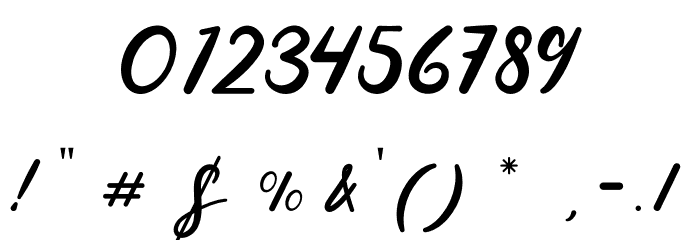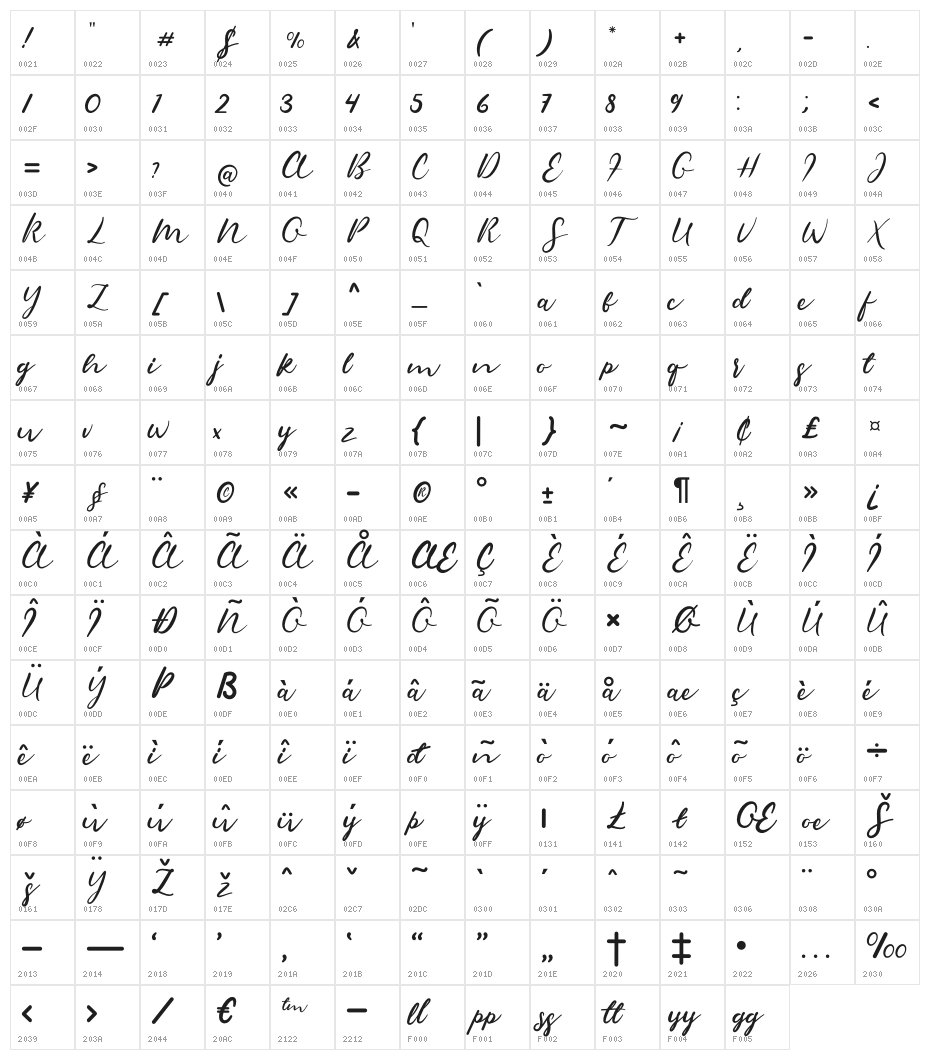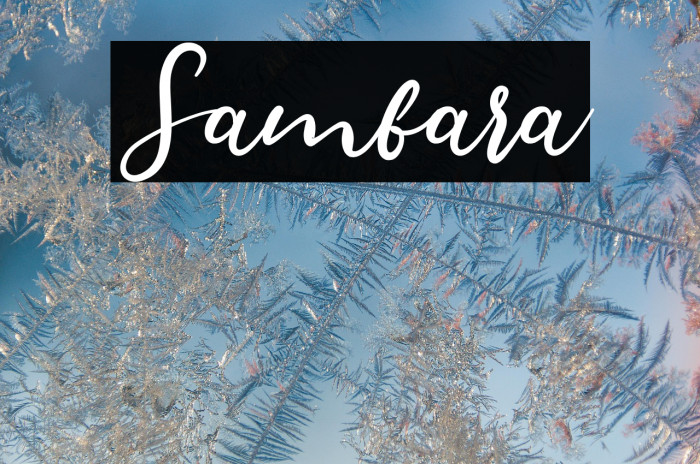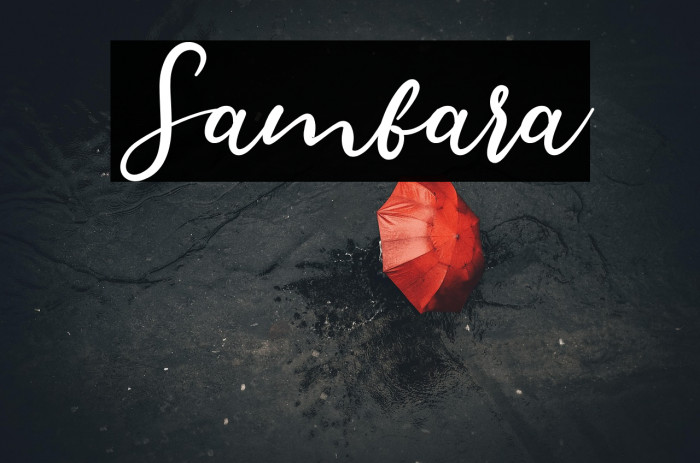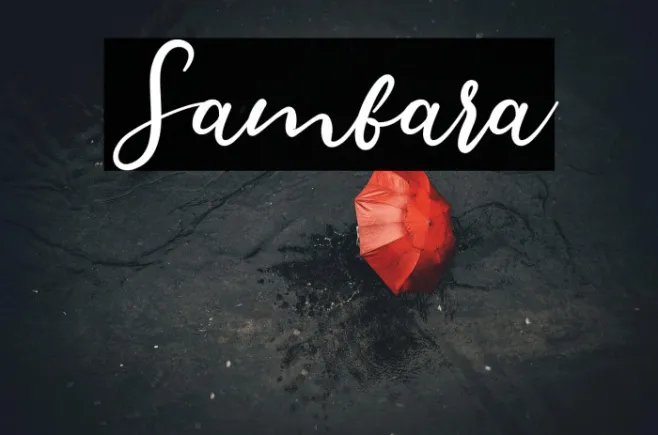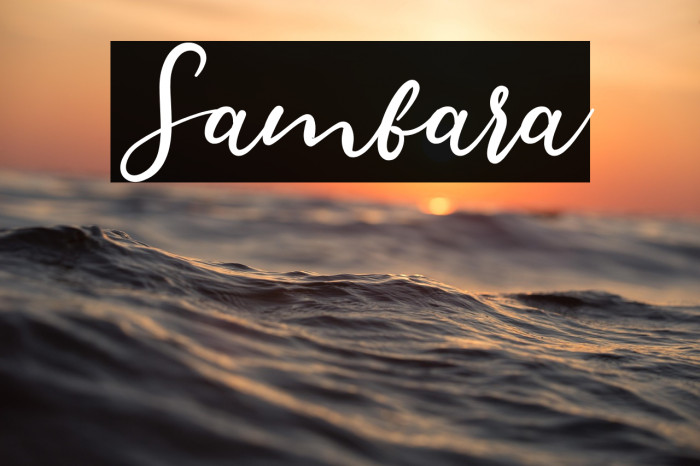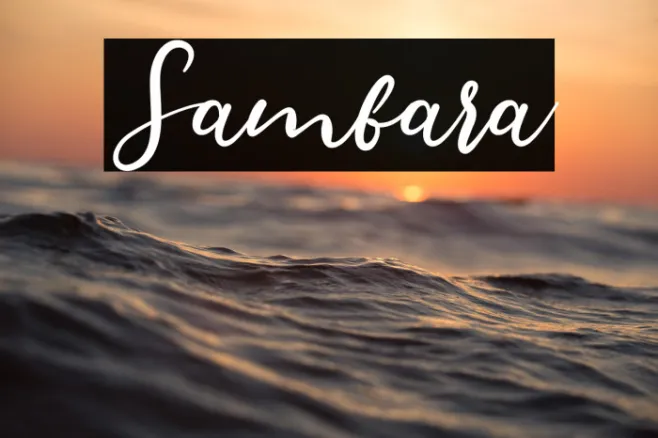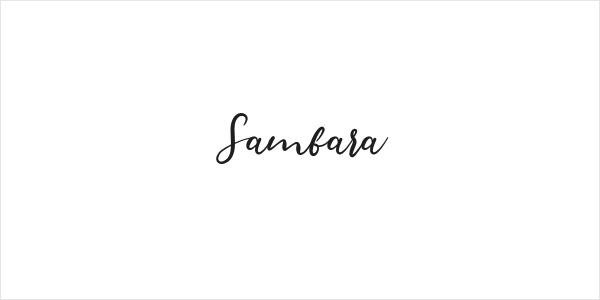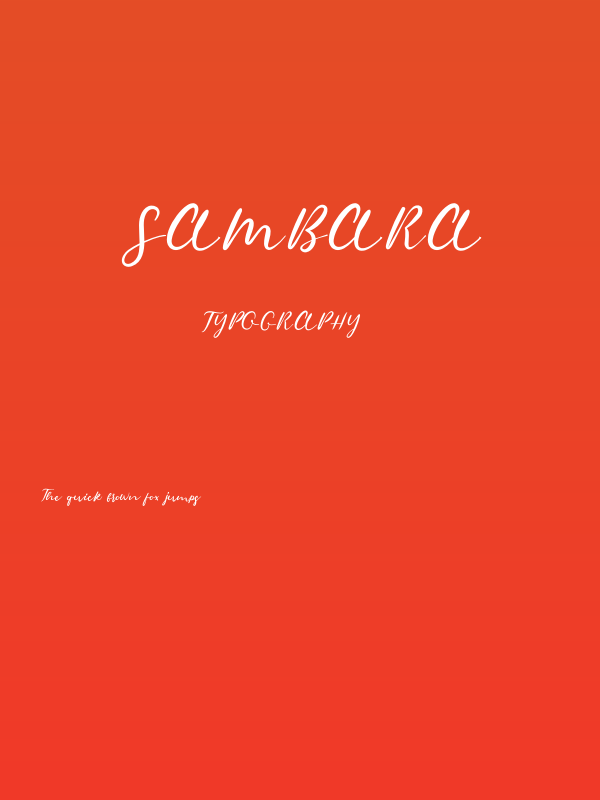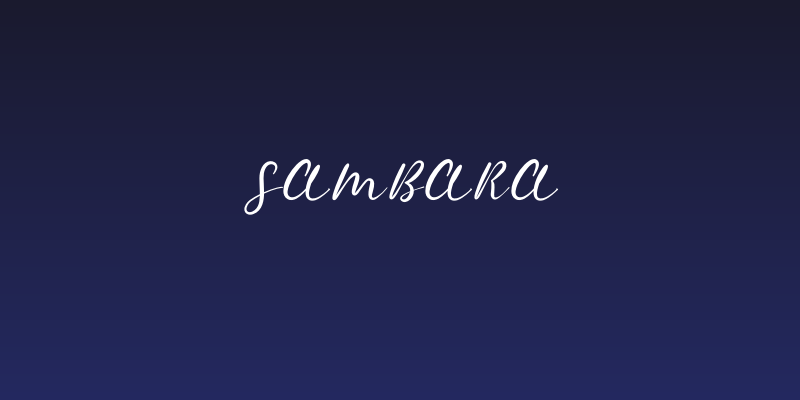
Sambara Font
Sambara Description
This font exudes a lively and expressive character with its flowing, cursive style. The letters are elegantly connected, creating a seamless and fluid appearance. The strokes vary in thickness, adding a dynamic quality that enhances its handwritten feel. The uppercase letters maintain a consistent height, while the lowercase letters feature charming loops and curves. The numerals are distinct yet harmonize well with the overall script style. Special characters are thoughtfully designed to match the font's aesthetic, making it versatile for various uses. Its playful yet sophisticated look makes it suitable for creative projects.
| Use Case | Logos, Invitations, Creative projects |
| Proposed Projects | Ideal for wedding invitations, greeting cards, branding, and creative projects that require a personal touch. |